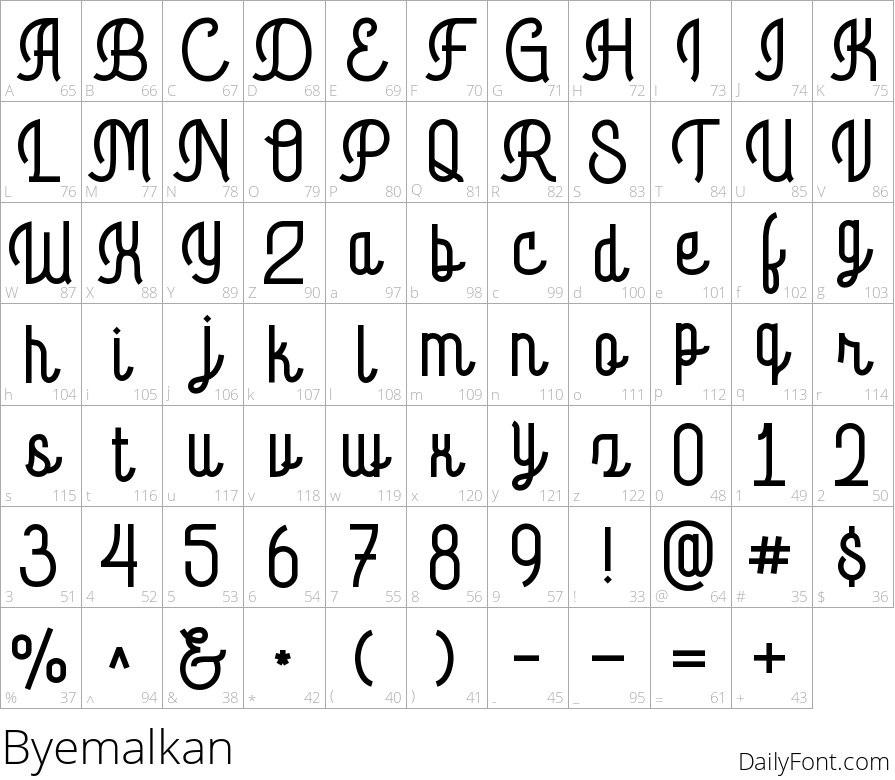
Byemalkan
Byemalkan is a beautifully crafted vintage styled script font that captures the essence of elegance and grace. With its smooth curves and fluid strokes, this font is the ideal choice for fashion branding, editorial designs, and any project where a touch of nostalgia is desired. Whether you’re creating logos, labels, or chic advertisements, Byemalkan offers a unique aesthetic that resonates well with contemporary audiences while paying homage to classic typography.
This versatile script font stands out with its distinctive style, making it perfect for both digital and print applications. Byemalkan is not just a text but a statement, allowing designers to communicate their brand's personality effortlessly. With its exceptional readability and artistic flair, Byemalkan will elevate your projects and help you engage your audience more effectively. Try it today and discover how Byemalkan can transform your creative endeavors.